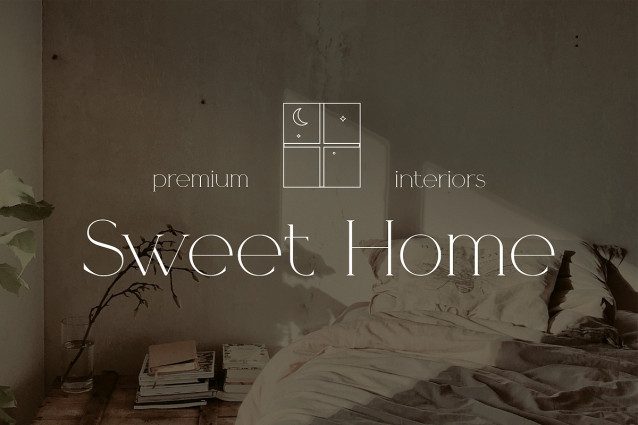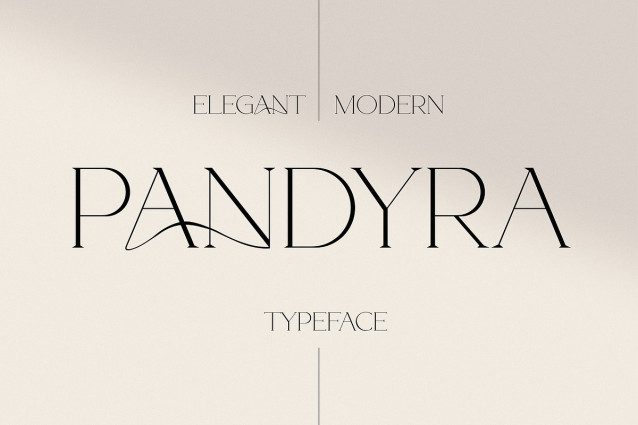
Pandyra Font
Pandyra Font is an elegant and modern typeface. Its minimalistic nature grabs your attention and keeps you hooked. The font comes with uppercase letters, lowercase letters, numerals, special characters, and some additional ligatures. Pandyra is ready to be used for luxury, elegant, and stylish projects like logos, magazines, weddings, advertising, web design, packaging, and more. Make your designs look timeless with Pandyra today!